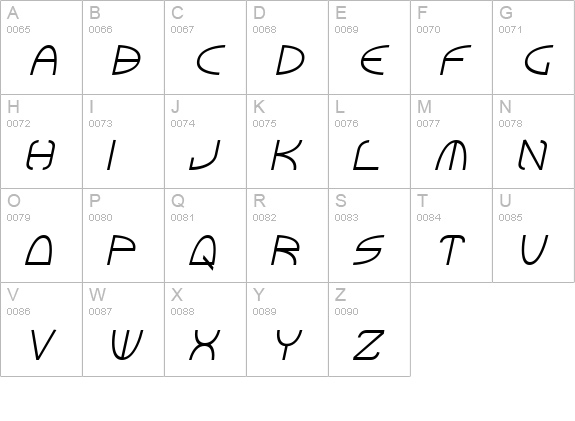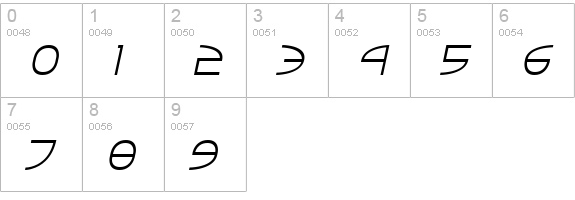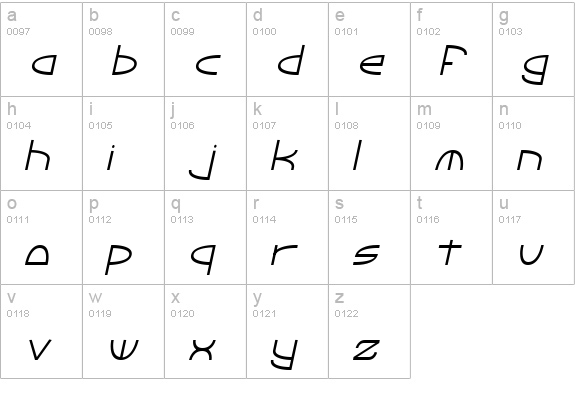
Tinker Round Italic is a distinctive, italic variant in the Tinker typeface family \xE2\x80\x94 well suited to design and typography projects.
Tinker Round Italic is a playful and whimsical font that adds a touch of fun to any project. Its rounded and slightly slanted letterforms give it a unique and charming appearance, perfect for capturing attention and adding personality to designs. This font is not only visually appealing but also highly versatile. It can be used in a wide range of creative projects, including logos, branding materials, packaging, posters, and more. Whether you're designing for a children's book, a party invitation, or a product label, Tinker Round Italic will infuse your work with a sense of joy and creativity. What sets Tinker Round Italic apart is not only its delightful design but also its accessibility. It is freely available to download at FontsMarket.com, making it accessible to designers of all levels. The fact that it is free does not compromise its quality or functionality; in fact, it ensures that everyone can enjoy its unique charm without any limitations. With Tinker Round Italic, you can bring your creative vision to life and add a touch of whimsy to your designs. Let this font spark your imagination and inspire you to create something truly memorable. Download Tinker Round Italic from FontsMarket.com and unleash your creativity today.